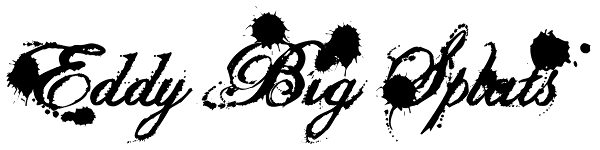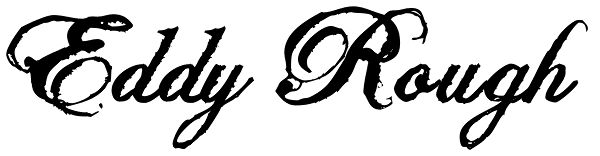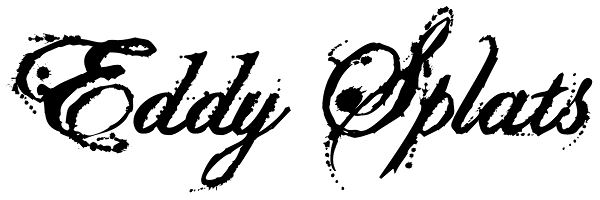
Eddy
"Eddy" is short for my dirty version of an Edwardian Script. I give you three versions, Big Splats, Splats and Rough. You should mix them for best results. Your splashy designer Gert Wiescher
Eddy Big Splats
Eddy Rough
Eddy Splats